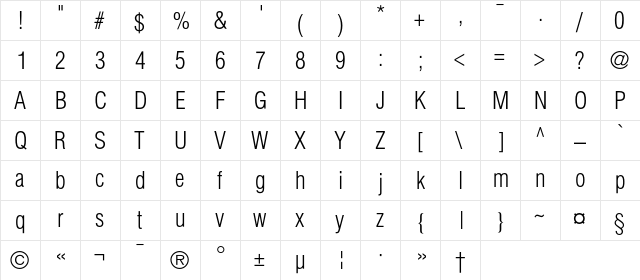
AGLettericaLightCondensedC Regular Font Preview
Design Context for AGLettericaLightCondensedC Typeface
AGLettericaLightCondensedC takes a measured approach to typography — its balanced proportions and neutral character make it a reliable workhorse for both digital and print work. Its slender proportions lend an understated elegance to any composition. Its narrow stance lets it pack a punch even in space-constrained designs.